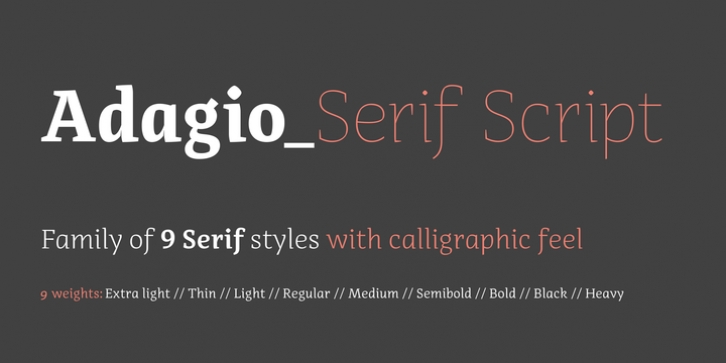
Adagio Serif Script downloadDesigner: Mateusz Machalski
Publisher: Borutta
Adagio Serif Script is an experimental vertical variety of a normal sans version, with the characteristics of handwriting. It has 9 weights and like the rest of Adagio family fonts over 400 characters.Thanks to it’s calligraphic feeling, Sans script version is a great compliment for the rest of the forms of Adagio_Family.